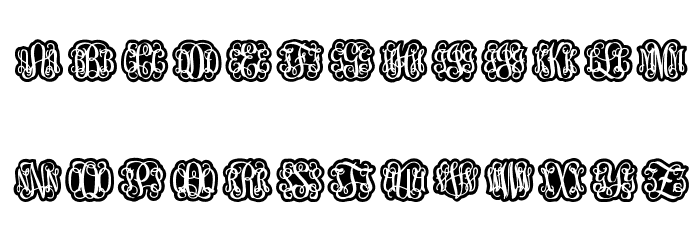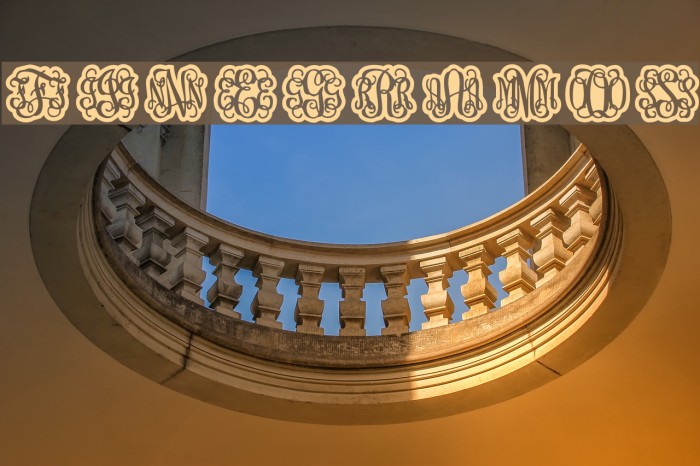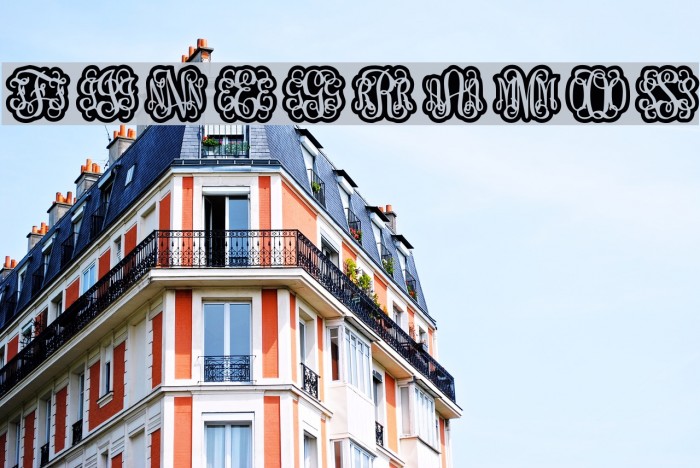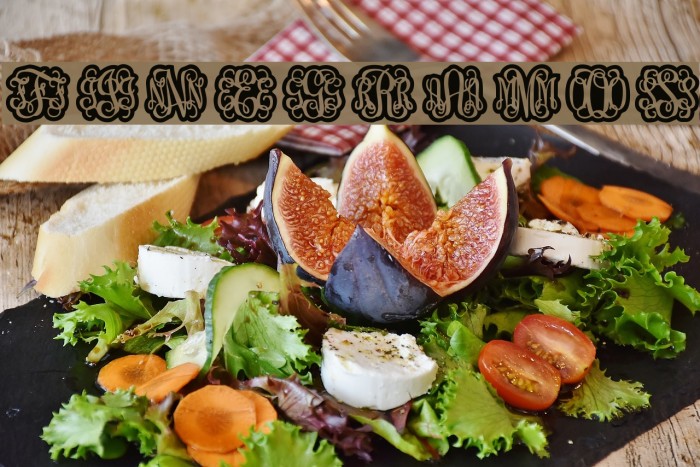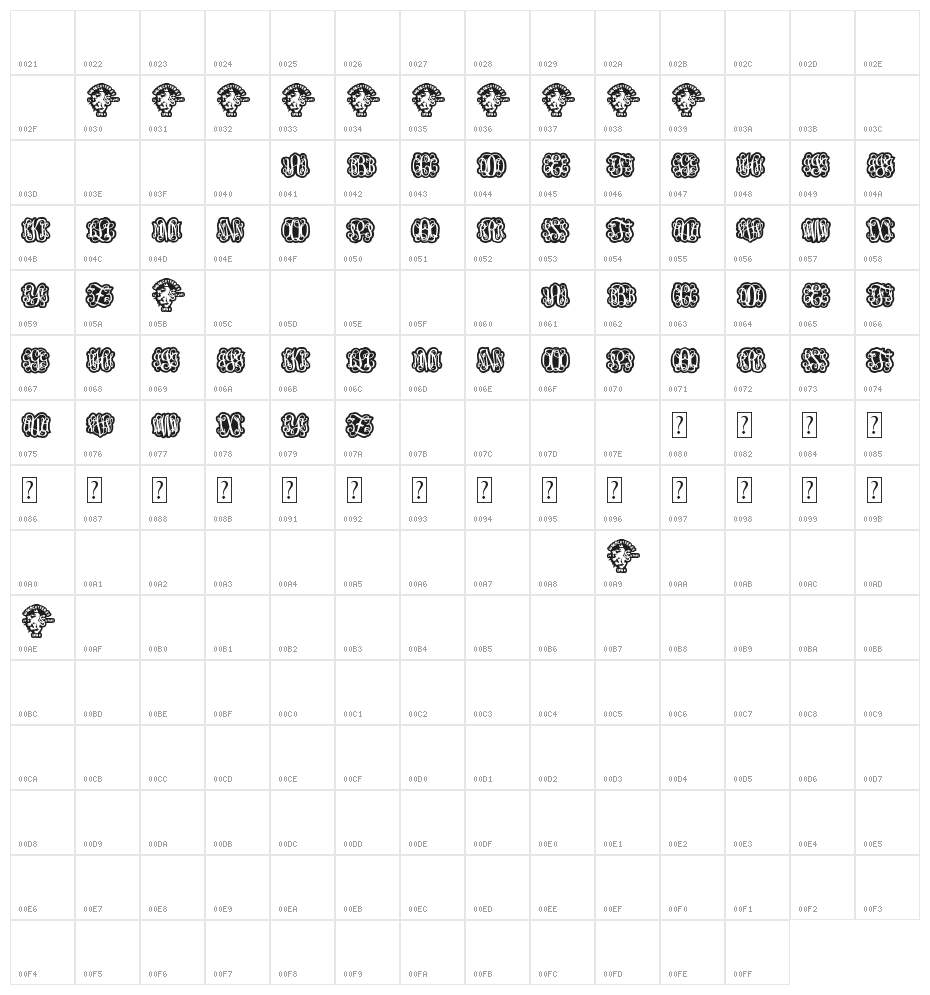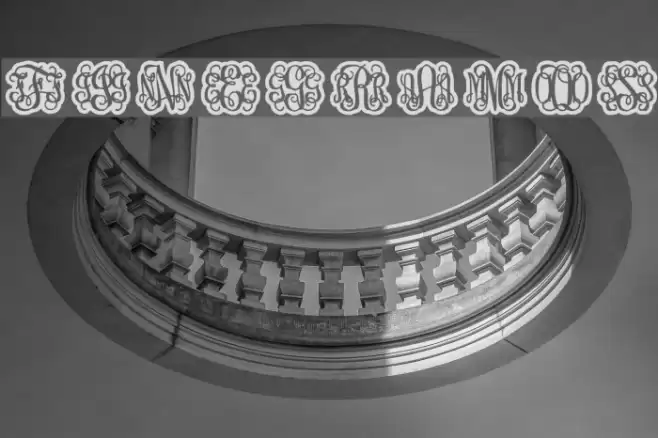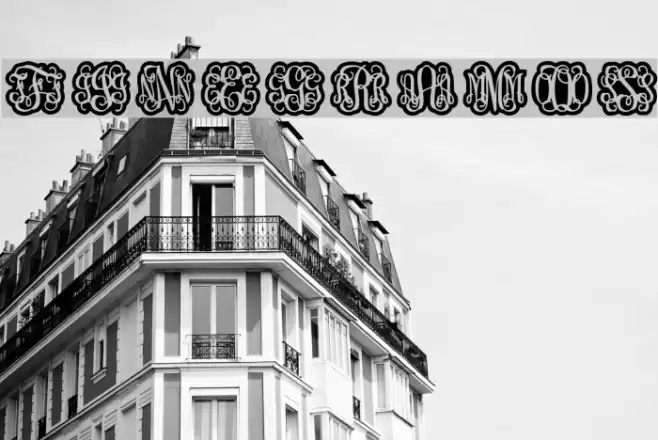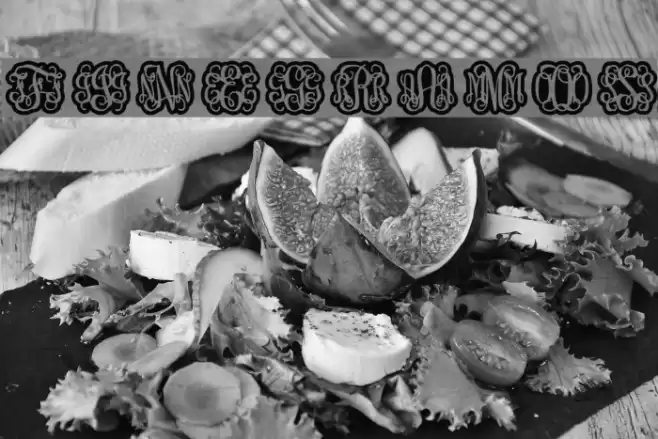
Finegramos Font
This font features a bold, decorative style with intricate, swirling patterns within each character. The letters are heavily stylized, with a strong emphasis on ornamental design, making them stand out with a unique flair. The characters are enclosed in a thick outline, adding to their bold appearance. The font is highly decorative, with a vintage feel that evokes a sense of historical or cultural richness. The detailed embellishments within each letter make it suitable for artistic and expressive projects.
A bold, decorative font with intricate, swirling patterns and a vintage feel.
- Proposed Projects: Ideal for use in branding, logos, posters, and artistic projects where a strong, decorative statement is needed.
- Overall Style: Vintage, Decorative
- Use Case: Logos, Posters, Artistic projects